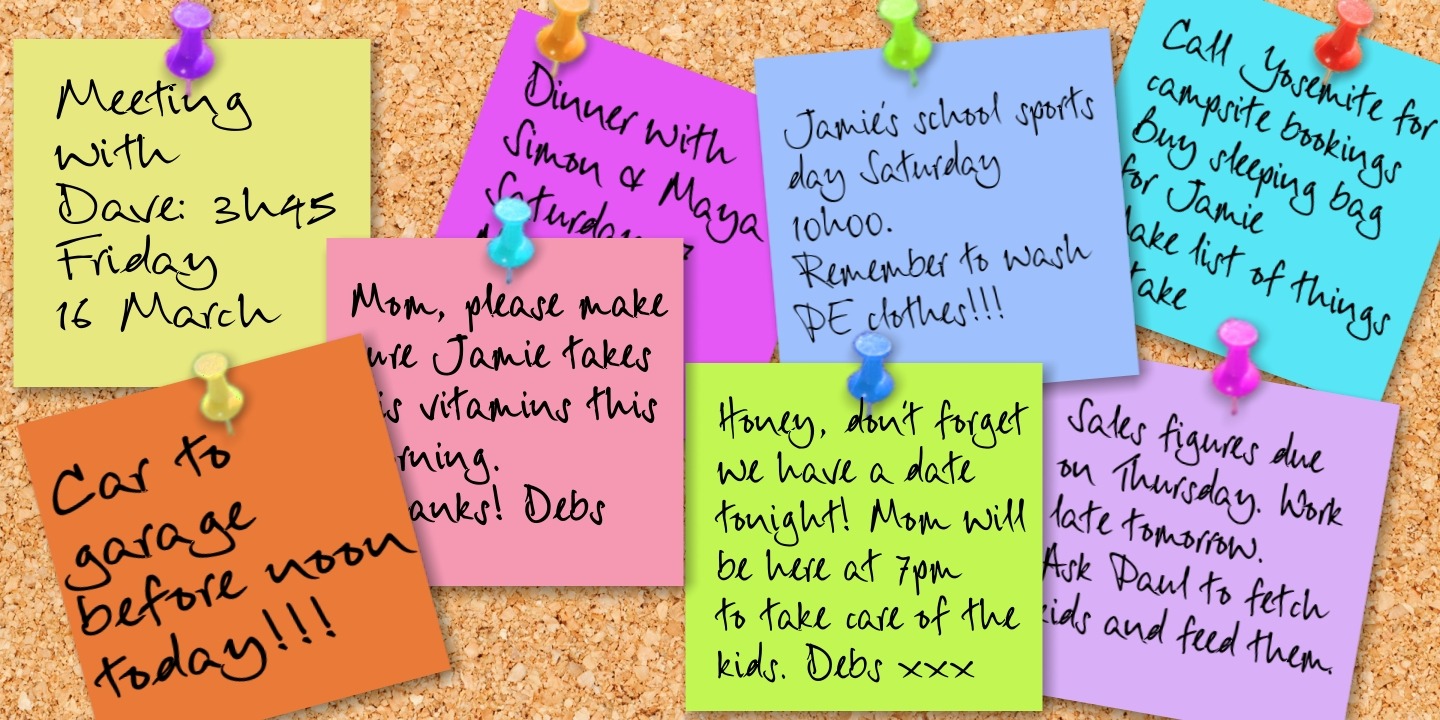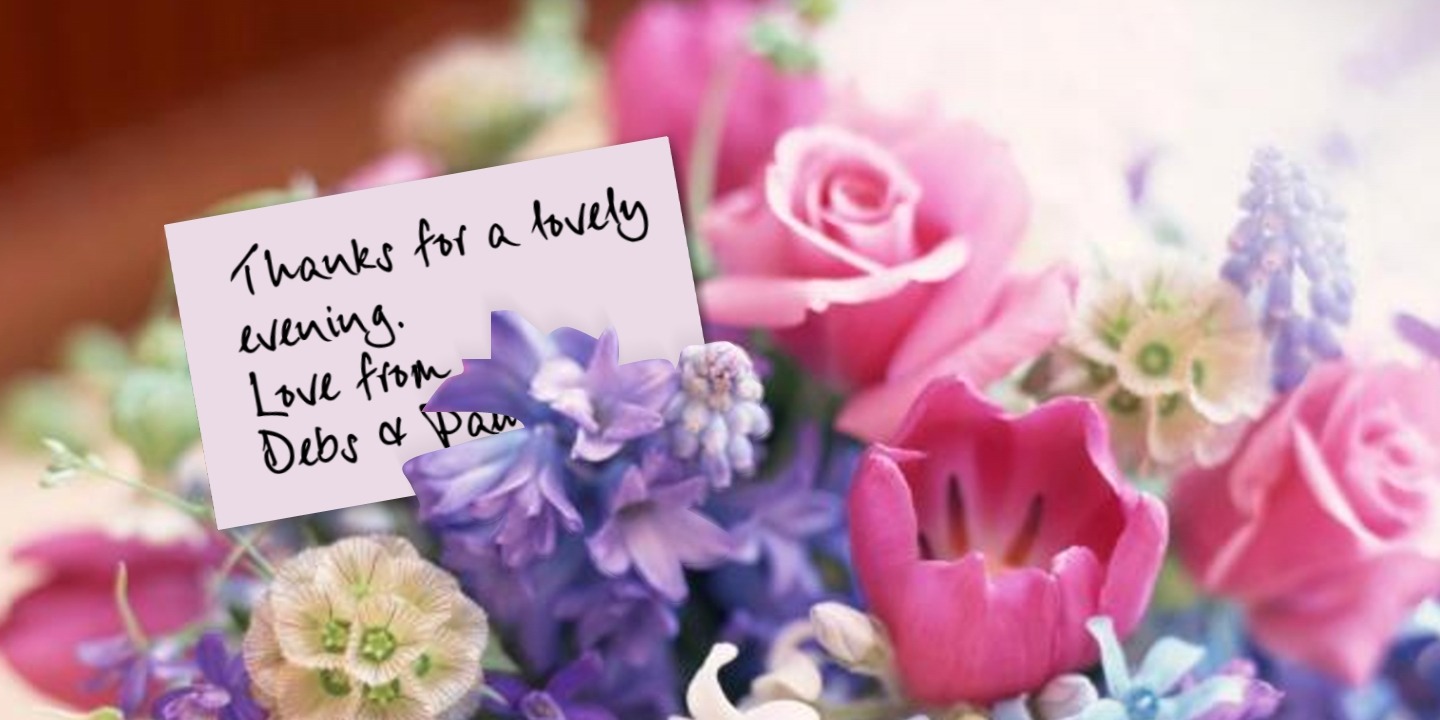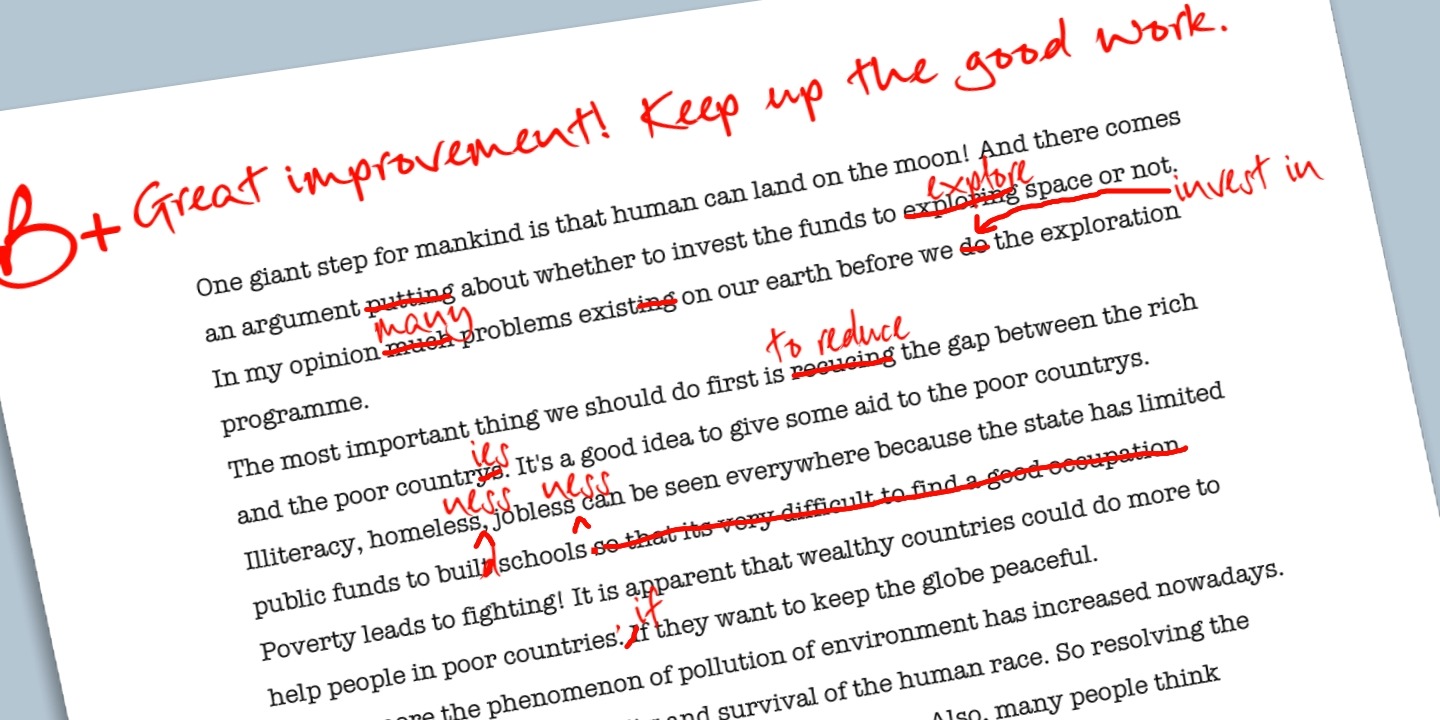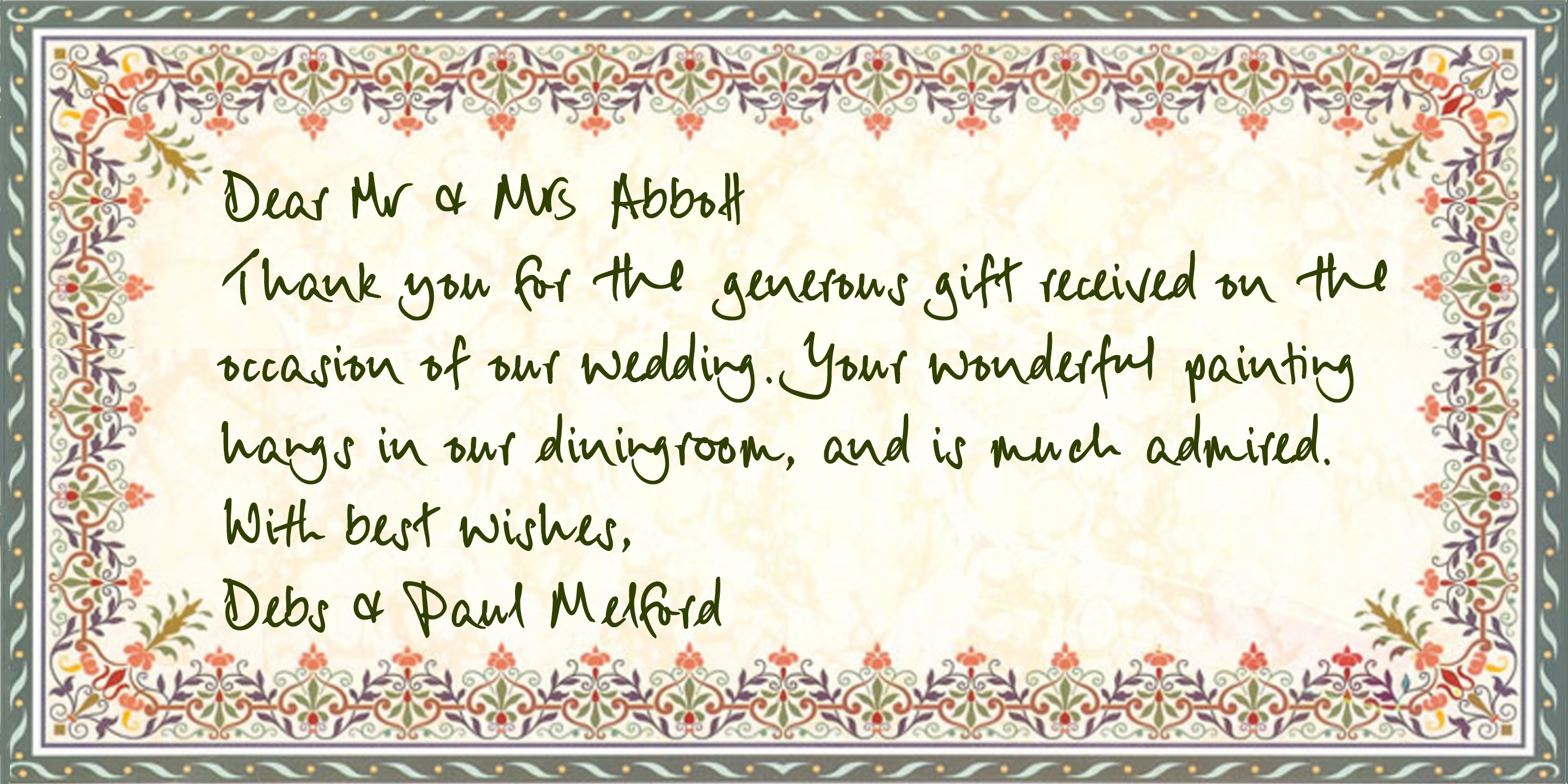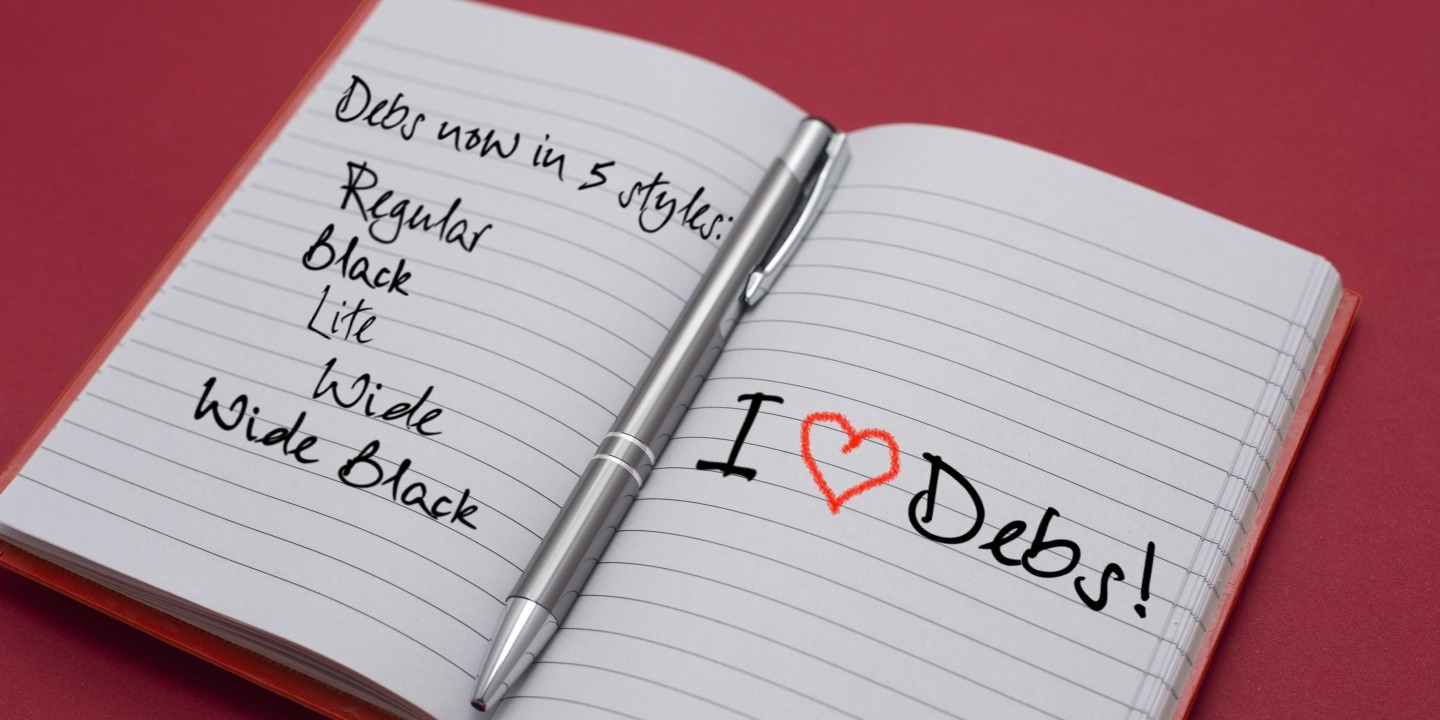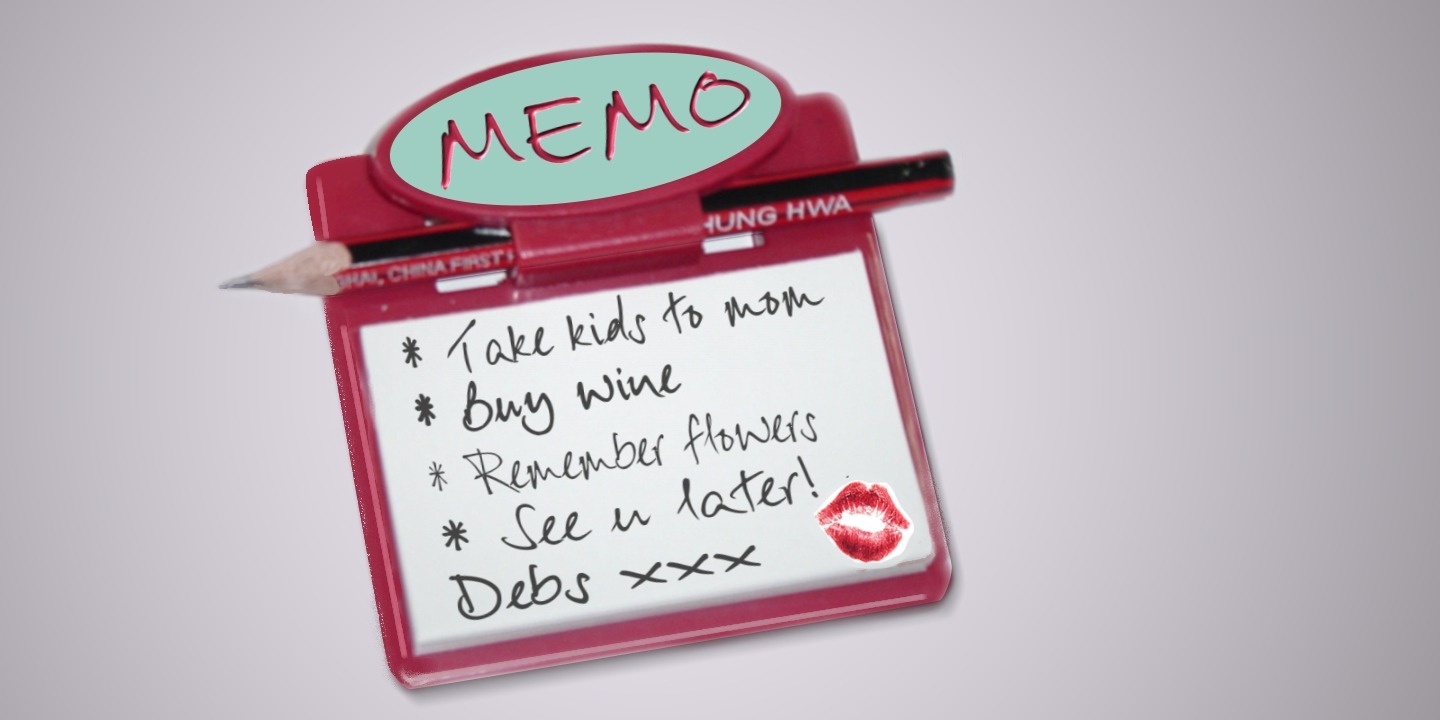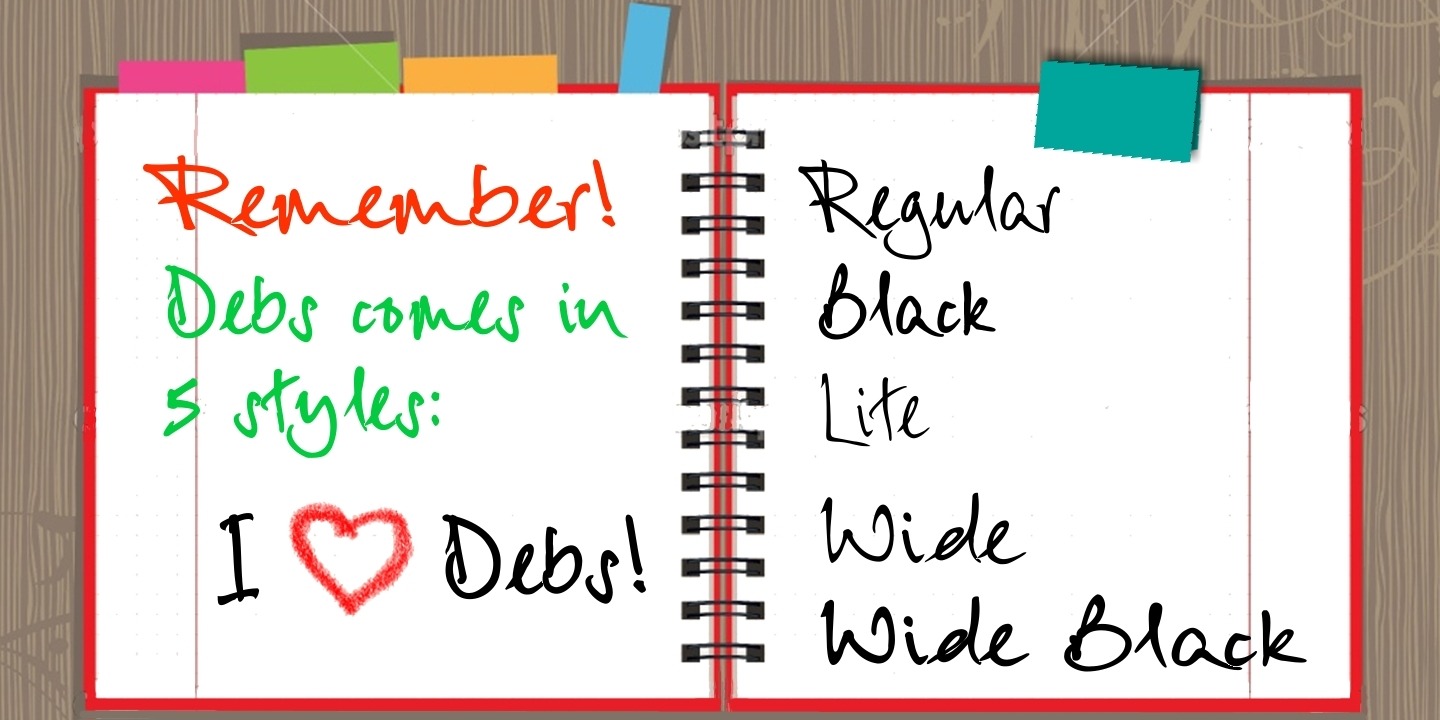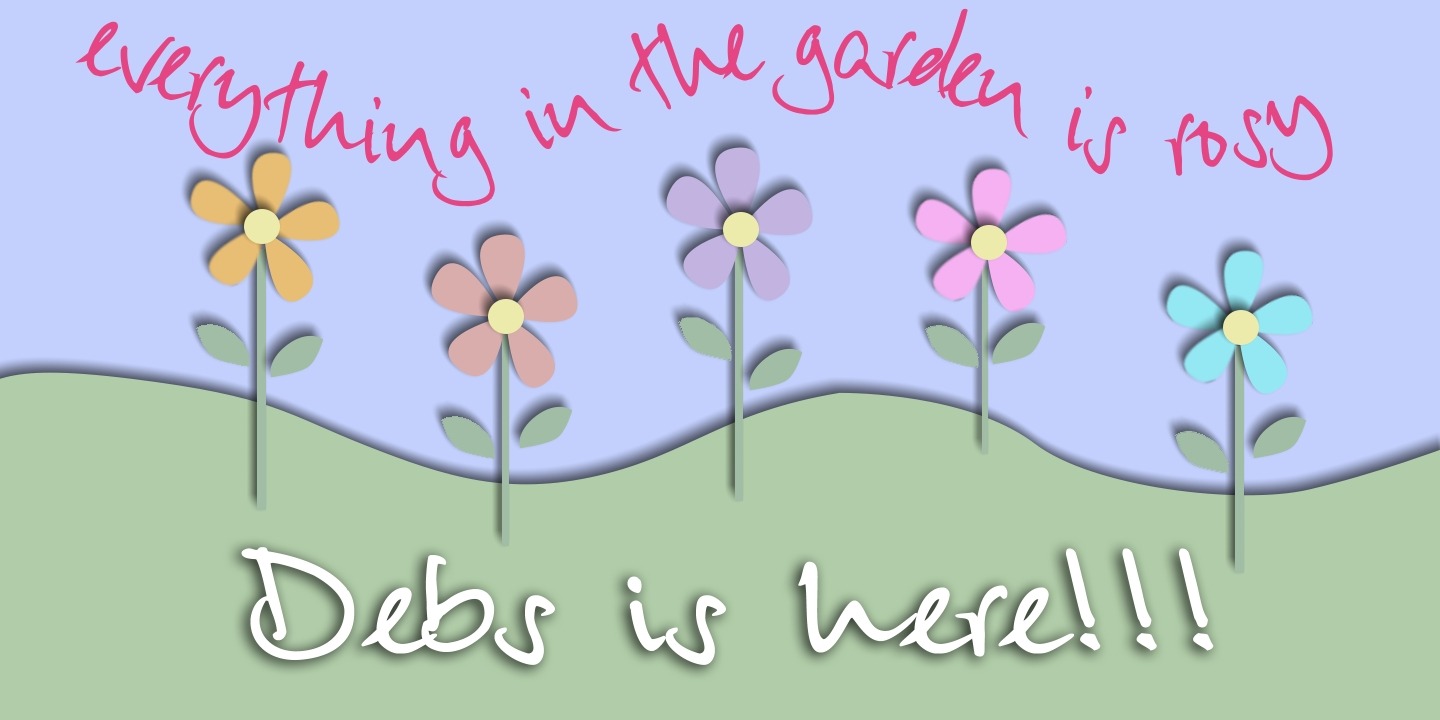
Debs
Font Family by Scholtz Fonts
Debs was inspired by a thank you note sent from one of my friends to another. The recipient liked the handwriting so much that he passed the note on to me after having asked permission from Debs, the writer. I enjoyed the vigor and looseness of the handwriting, as well as admiring its legibility and style.
Debs has all the characteristics of modern handwriting: It appears loose, unstructured, and free, while maintaining good form and great legibility. Its baseline is varied, creating an impression of notes written by busy people, while its characters remain well formed and readable. Debs comes in five styles, regular, lite, black, wide and wide-black.
Use Debs for advertising, for casual greeting cards, for a casual, handwritten look on music or fashion media.
Debs has all the features usually included in a fully professional font. Language support includes all European character sets.